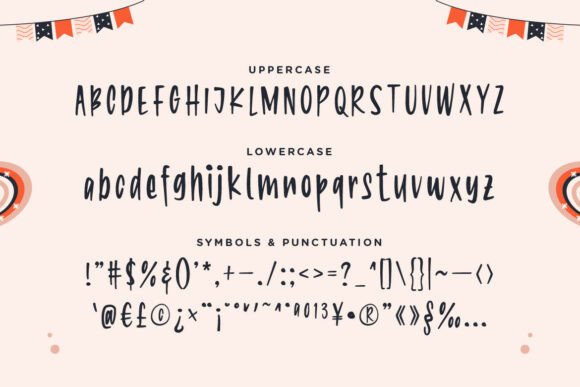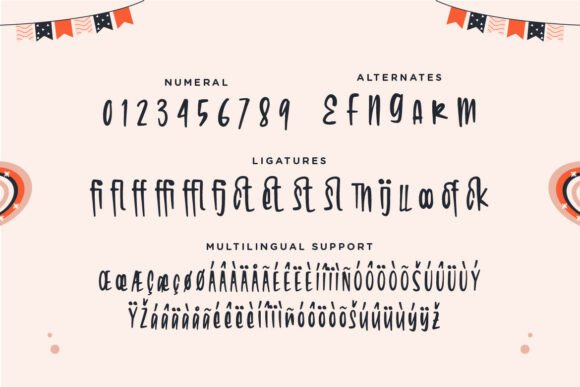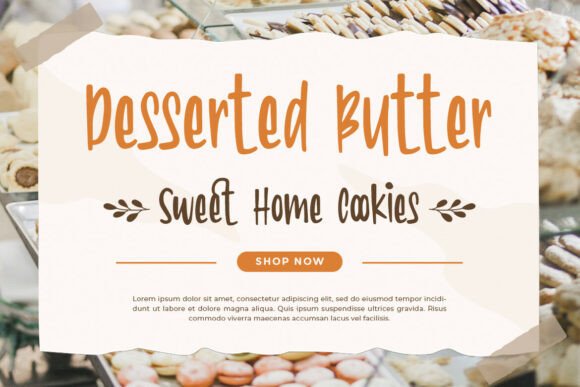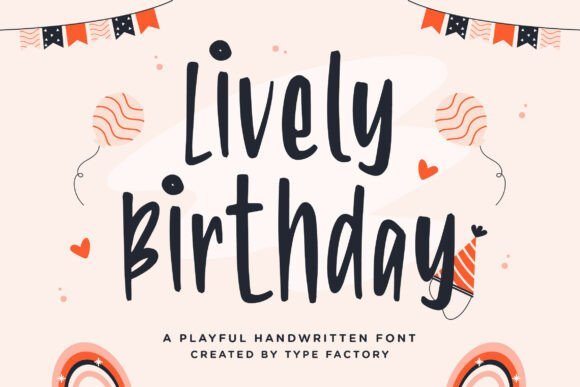
Introduction to Lively Birthday Font
Lively Birthday is a playful handwritten display font designed with natural brush strokes and slightly irregular letterforms.
The characters feature rounded edges, dynamic vertical rhythm, and casual marker-style texture that create a friendly and cheerful appearance This font works especially well for birthday invitations, party decorations, greeting cards, kids branding, packaging labels, social media graphics, posters, and merchandise designs.